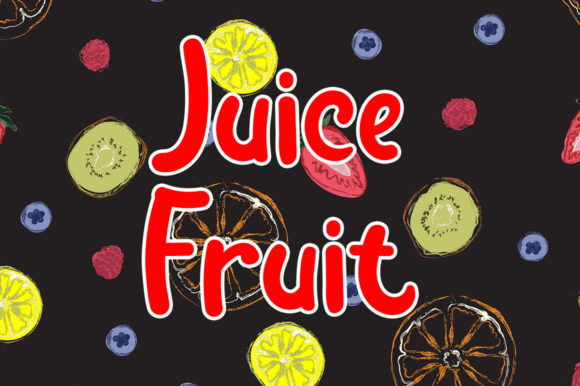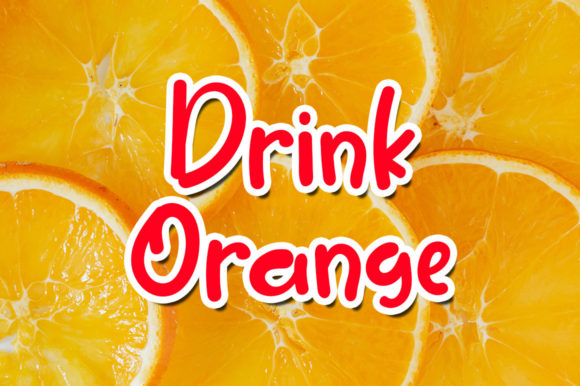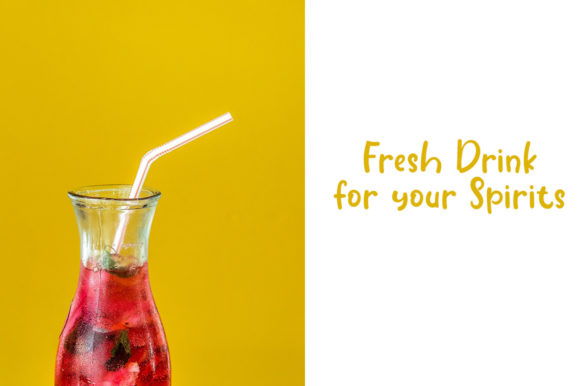
Introducing Beauty Orange Font: The Quirky and Sweet Handwritten Font
Are you looking for a font that adds a touch of freshness and playfulness to your designs? Look no further than the Beauty Orange Font! This quirky and sweet handwritten font is perfect for designers and crafters who want to add a personal touch to their projects. In this article, we’ll dive into the features and benefits of Beauty Orange Font, and explore how it can elevate your designs to the next level.
What is Beauty Orange Font?
Beauty Orange Font is a unique and charming handwritten font that is fresh, clean, and neat. Its quirky and sweet personality makes it perfect for a wide range of projects, from formal to informal. Whether you’re designing a logo, creating a social media graphic, or crafting a handmade card, Beauty Orange Font is sure to make your design stand out.
Key Features of Beauty Orange Font
- Handwritten style: Beauty Orange Font has a beautiful, handwritten style that adds a personal touch to any design.
- Quirky and sweet: The font’s quirky and sweet personality makes it perfect for designs that require a playful touch.
- Fresh and clean: The font’s clean and fresh design ensures that it will look great in a variety of projects.
- Neat and legible: Despite its playful style, Beauty Orange Font is neat and legible, making it easy to read and understand.
Benefits of Using Beauty Orange Font
So, why should you choose Beauty Orange Font for your next project? Here are just a few benefits of using this amazing font:
- Versatility: Beauty Orange Font is versatile and can be used in a wide range of projects, from formal to informal.
- Uniqueness: The font’s unique and quirky style ensures that your design will stand out from the crowd.
- Time-saving: With Beauty Orange Font, you can create professional-looking designs in no time, saving you time and effort.
How to Use Beauty Orange Font
Using Beauty Orange Font is easy! Here are a few tips to get you started:
- Pair it with other fonts: Beauty Orange Font looks great when paired with other fonts, such as sans-serif fonts or script fonts.
- Use it for headings: The font’s bold and playful style makes it perfect for headings and titles.
- Add it to your branding: Beauty Orange Font can add a personal touch to your branding, making it more relatable and engaging.
Design Ideas Using Beauty Orange Font
- Social media graphics: Use Beauty Orange Font to create eye-catching social media graphics that will grab the attention of your followers.
- Handmade cards: Add a personal touch to your handmade cards with Beauty Orange Font.
- Logos: Use Beauty Orange Font to create a unique and memorable logo for your business.
- Invitations: Create beautiful and playful invitations with Beauty Orange Font.
In conclusion, Beauty Orange Font is a quirky and sweet handwritten font that is perfect for designers and crafters who want to add a personal touch to their projects. With its fresh, clean, and neat design, Beauty Orange Font is sure to elevate your designs to the next level. Whether you’re creating a logo, social media graphic, or handmade card, Beauty Orange Font is a great choice. So why not give it a try and see the difference it can make in your designs?